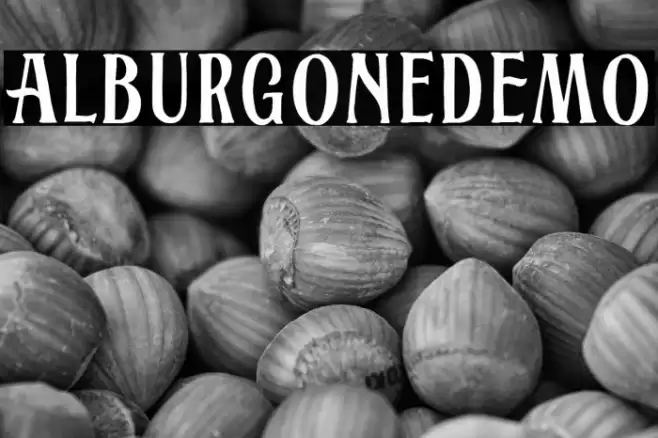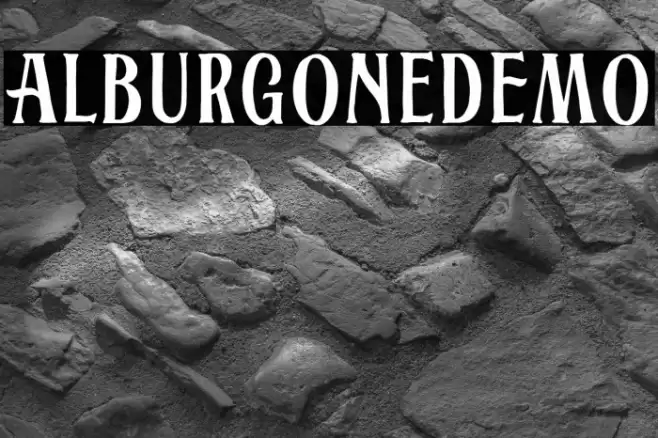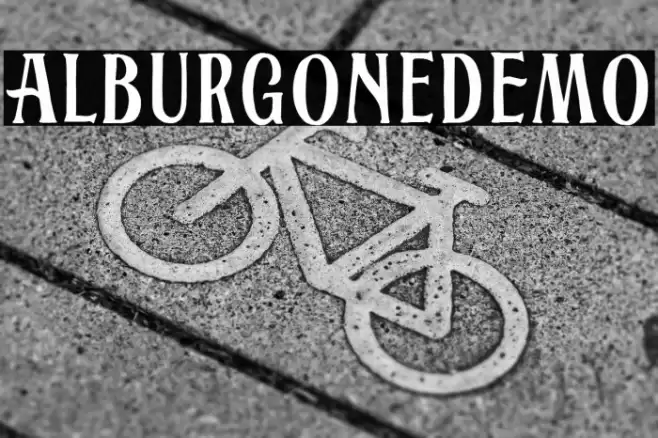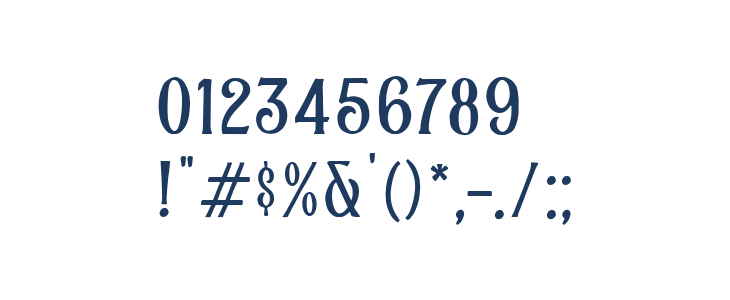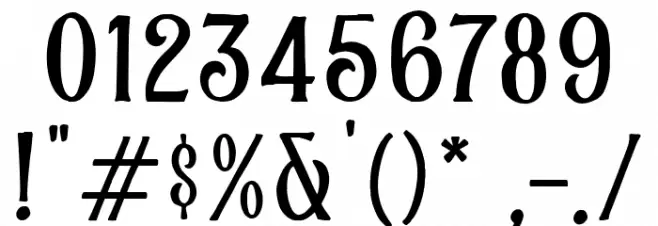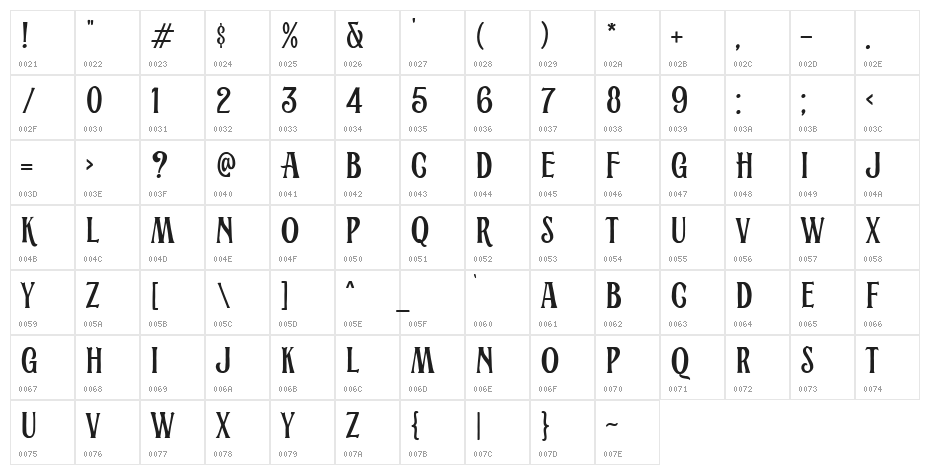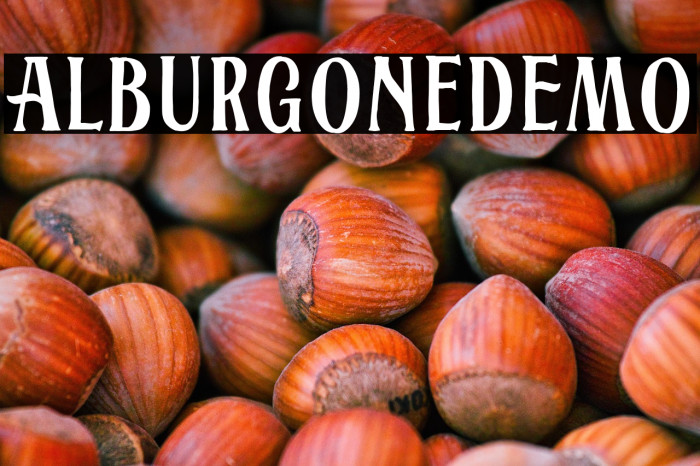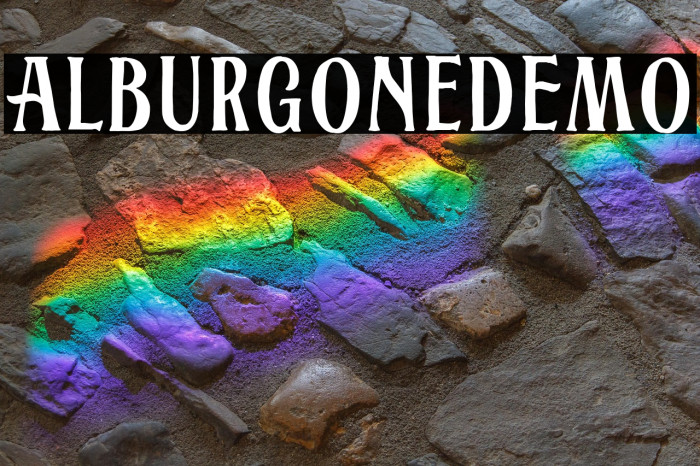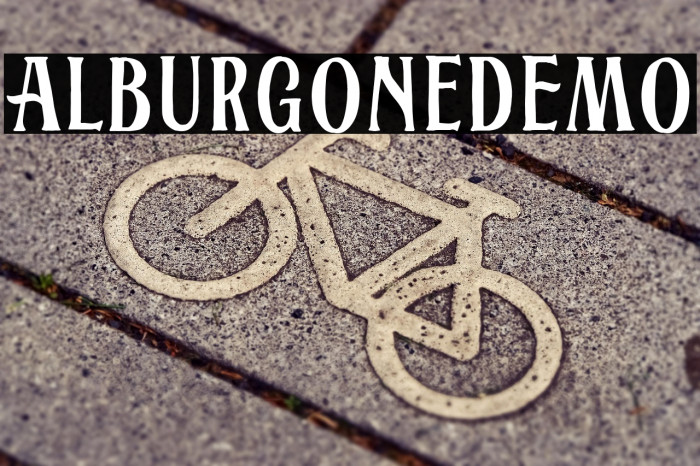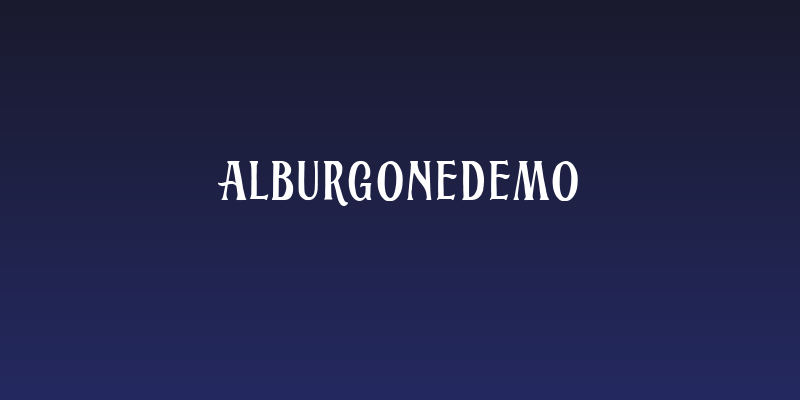
AlburgoneDEMO Font
AlburgoneDEMO Description
This font features a bold and dynamic style with a strong presence. The uppercase letters are tall and slightly condensed, with a playful yet sophisticated flair. The lowercase letters maintain a consistent rhythm, offering a harmonious blend of curves and straight lines. The numbers are robust and clear, ensuring readability. Special characters are designed with a unique touch, adding to the font's overall charm. This typeface is ideal for making a statement, combining elegance with a hint of whimsy.
A bold, dynamic font with a playful yet sophisticated style from Regular fonts.
- Proposed Projects: Ideal for branding, poster design, and headlines where a strong visual impact is desired.
- Overall Style: Modern, Decorative